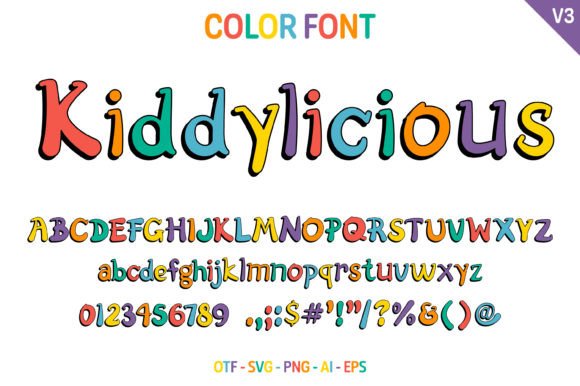
Kiddylicious V3: A Font That Sparks Imagination and Makes Designing a Delight!
Welcome to the world of Kiddylicious V3 - a playful and cheerful color font that ignites creativity and transforms your designs into enchanting masterpieces. Say goodbye to boring fonts and embrace the vibrancy of Kiddylicious, meticulously crafted to bring joy to every project you undertake.
With its charming rounded edges and bold weight, Kiddylicious V3 captures attention effortlessly, making your designs pop and leaving a lasting impression. Dive into a world of endless possibilities, where your imagination runs free and your designs come alive with a touch of whimsy and wonder.
Whether you're designing a whimsical children's book, a vibrant poster, or an eye-catching logo, Kiddylicious V3 is your perfect partner. Its complete character set, featuring uppercase and lowercase letters, numbers, and punctuation, grants you the flexibility to express your creativity in countless ways.
Let Kiddylicious V3 ignite your passion for design, spark your imagination, and transport you to a realm of pure joy. Embrace the magic of Kiddylicious V3 and unlock the potential of your designs. Your projects will radiate with delight, captivating audiences and leaving them enchanted by your artistic vision.